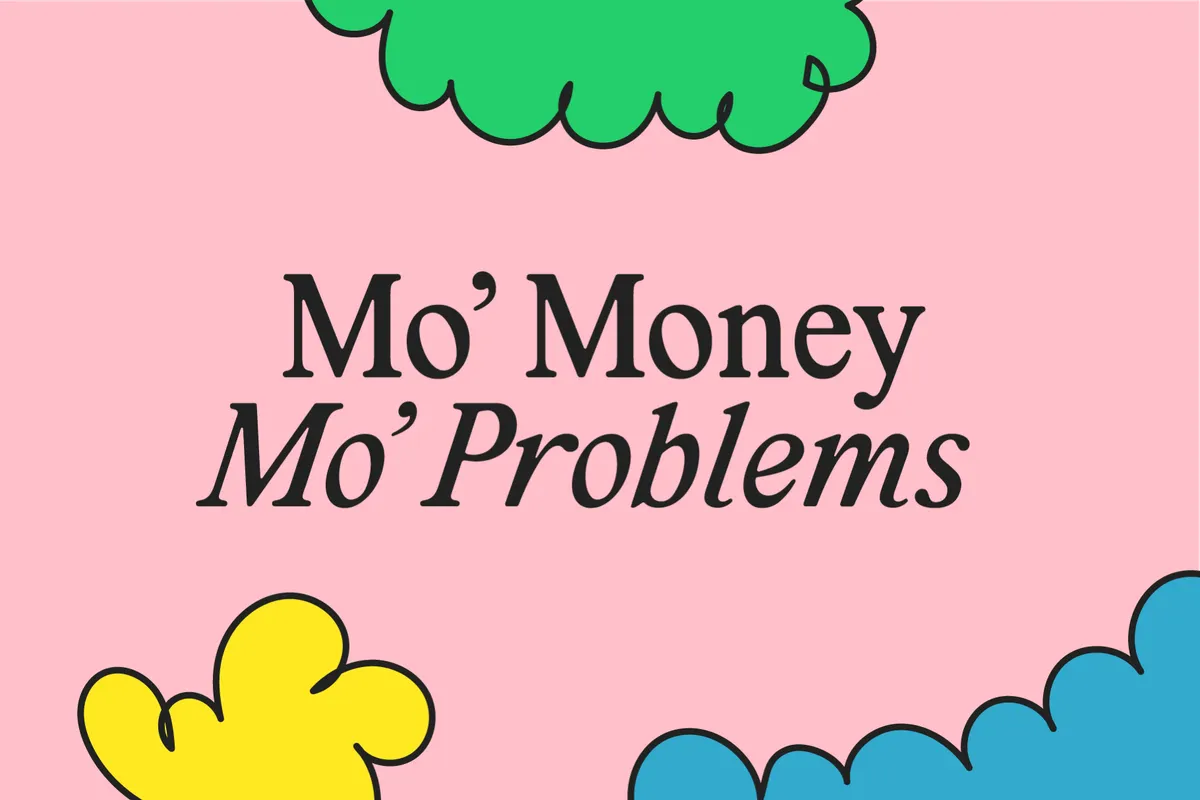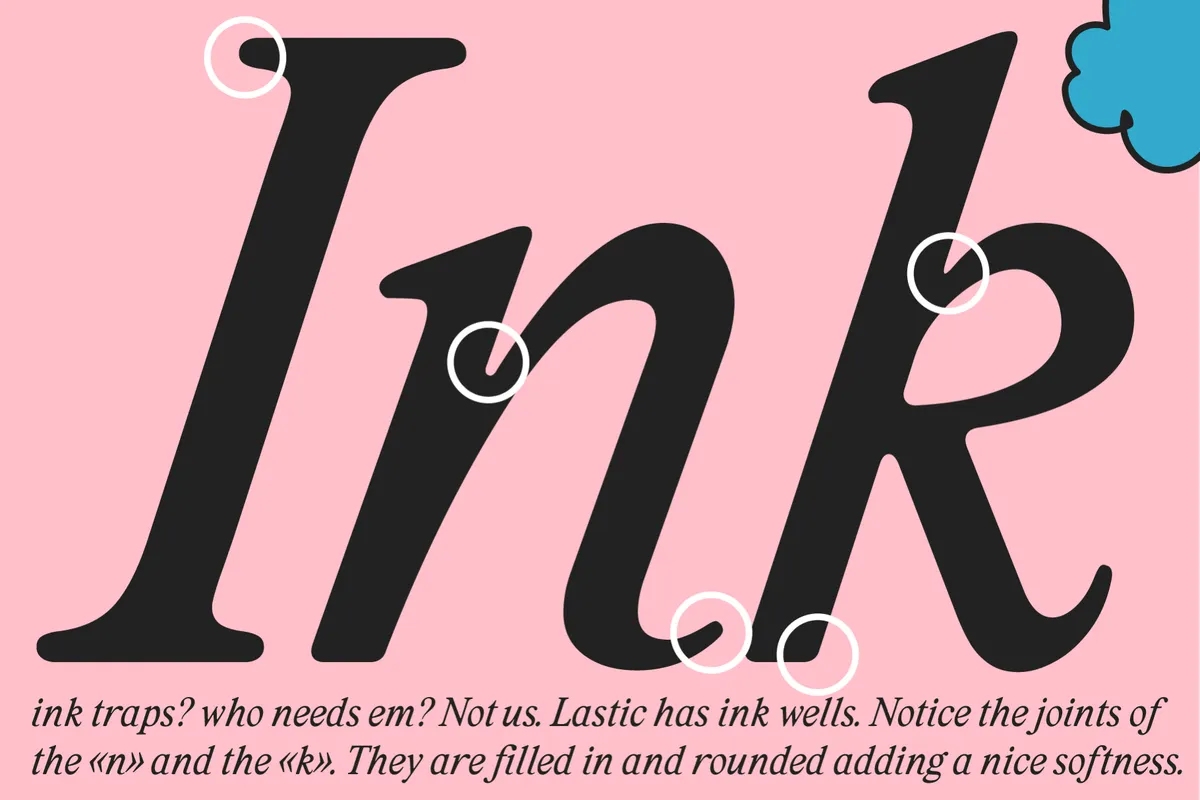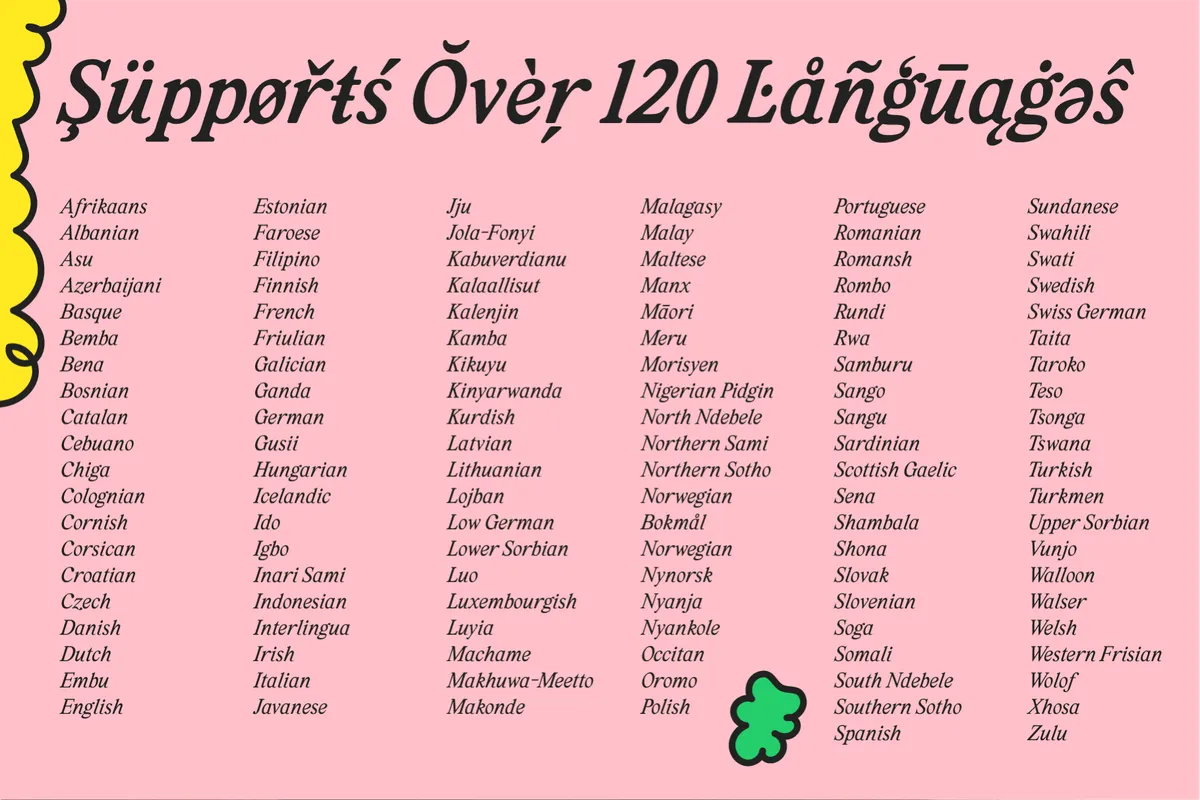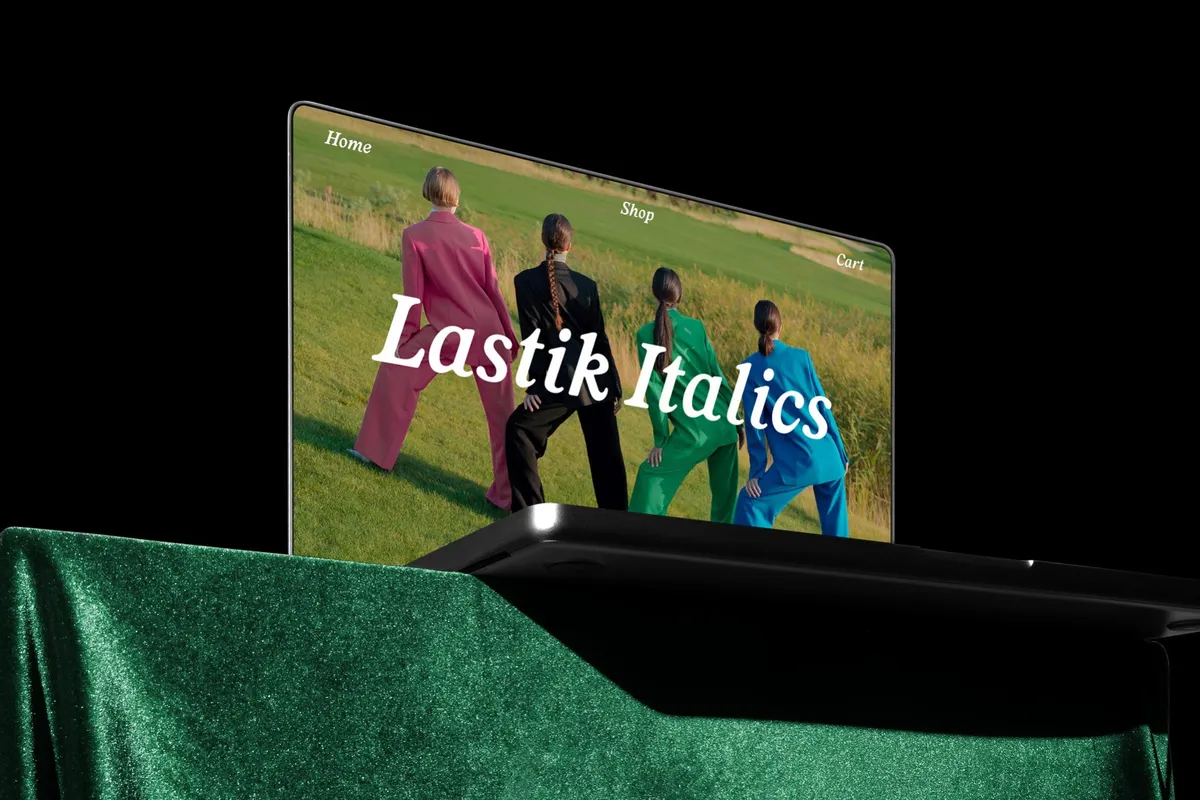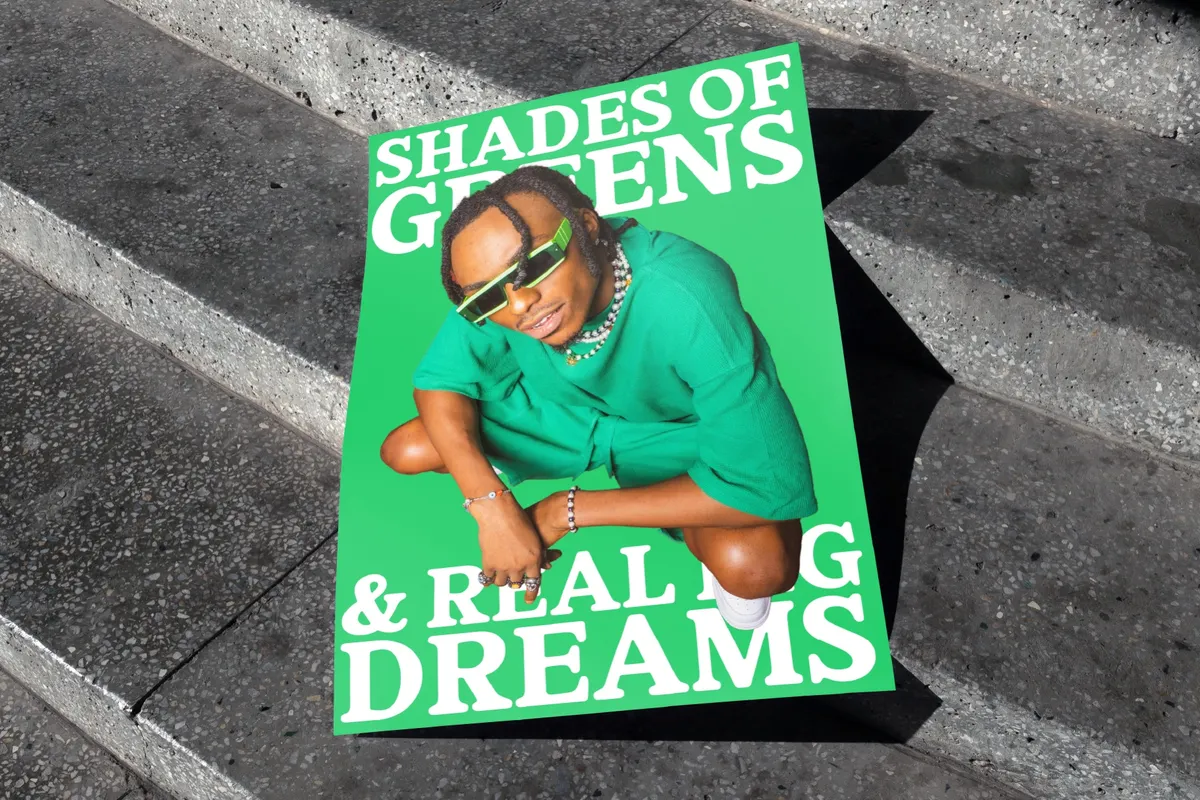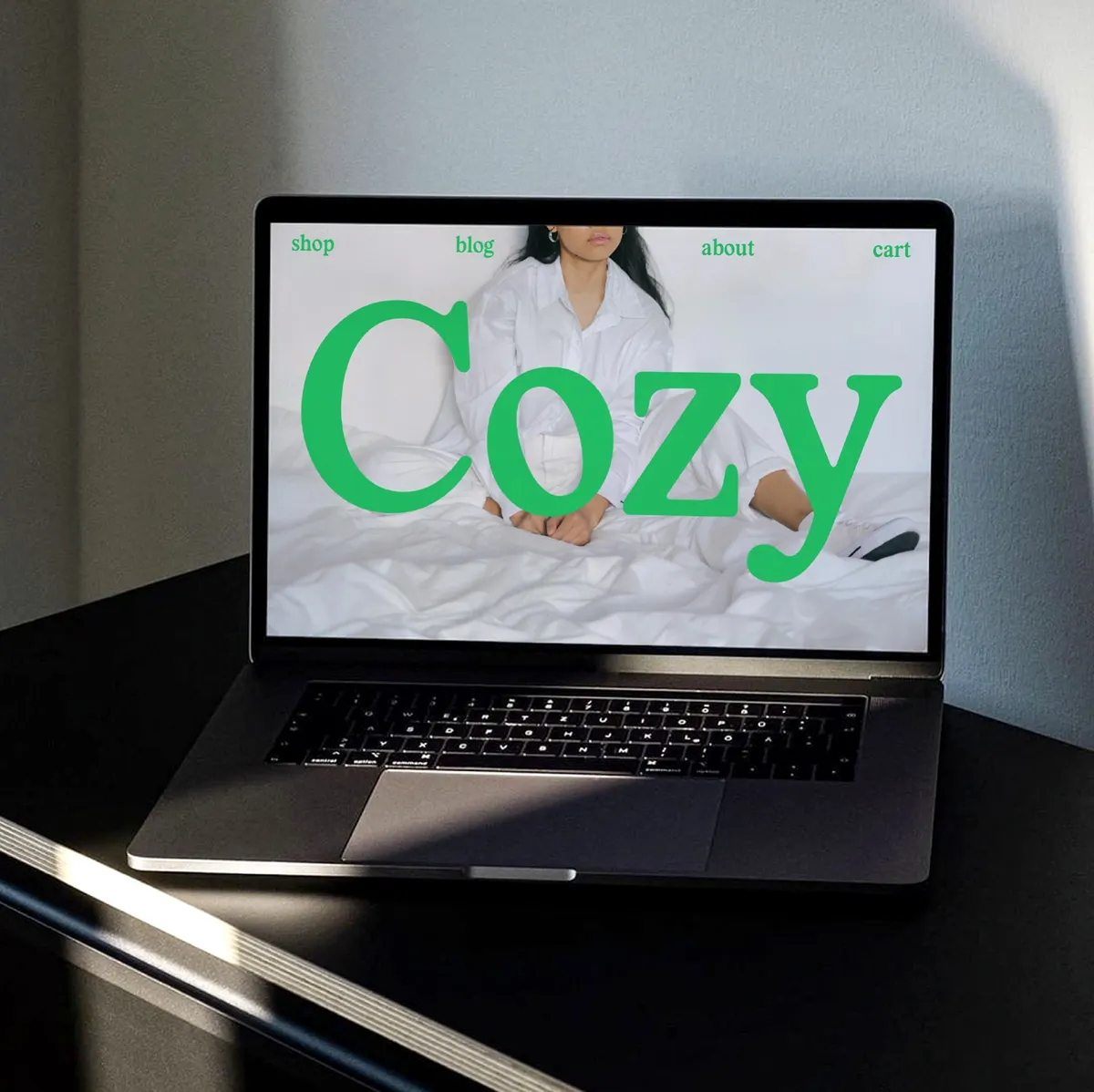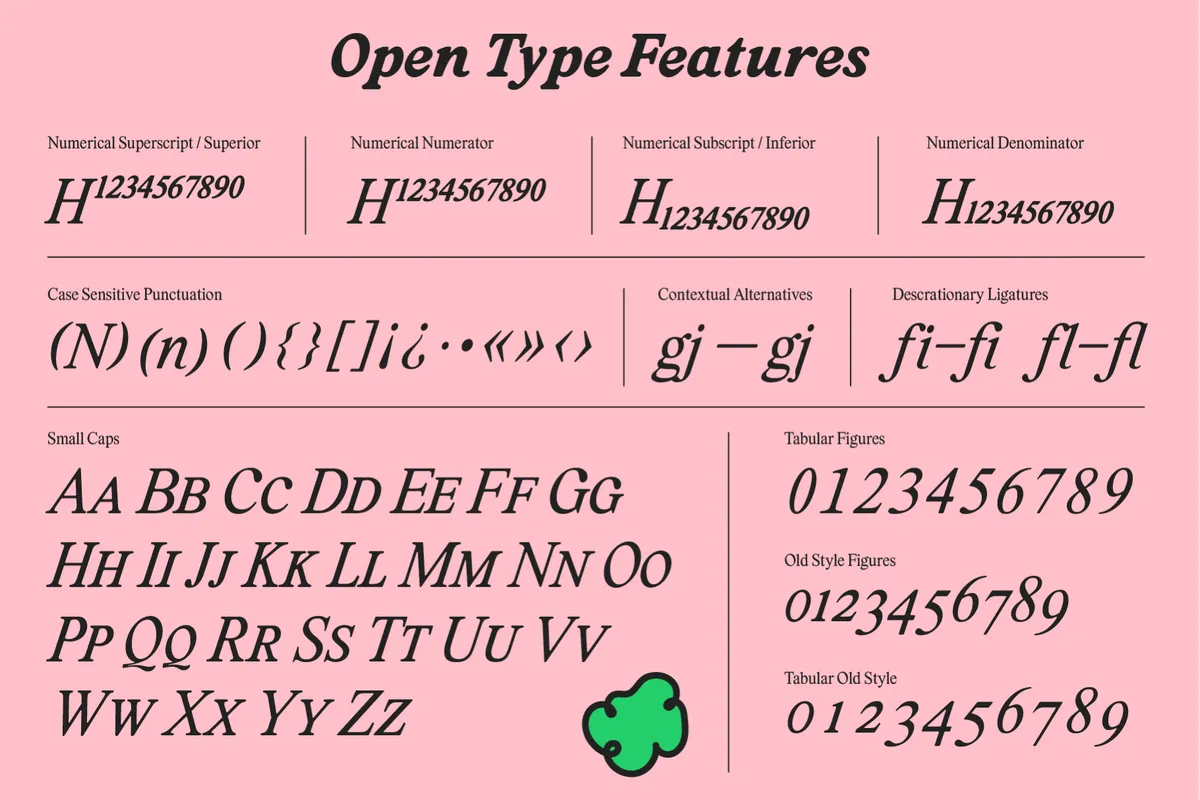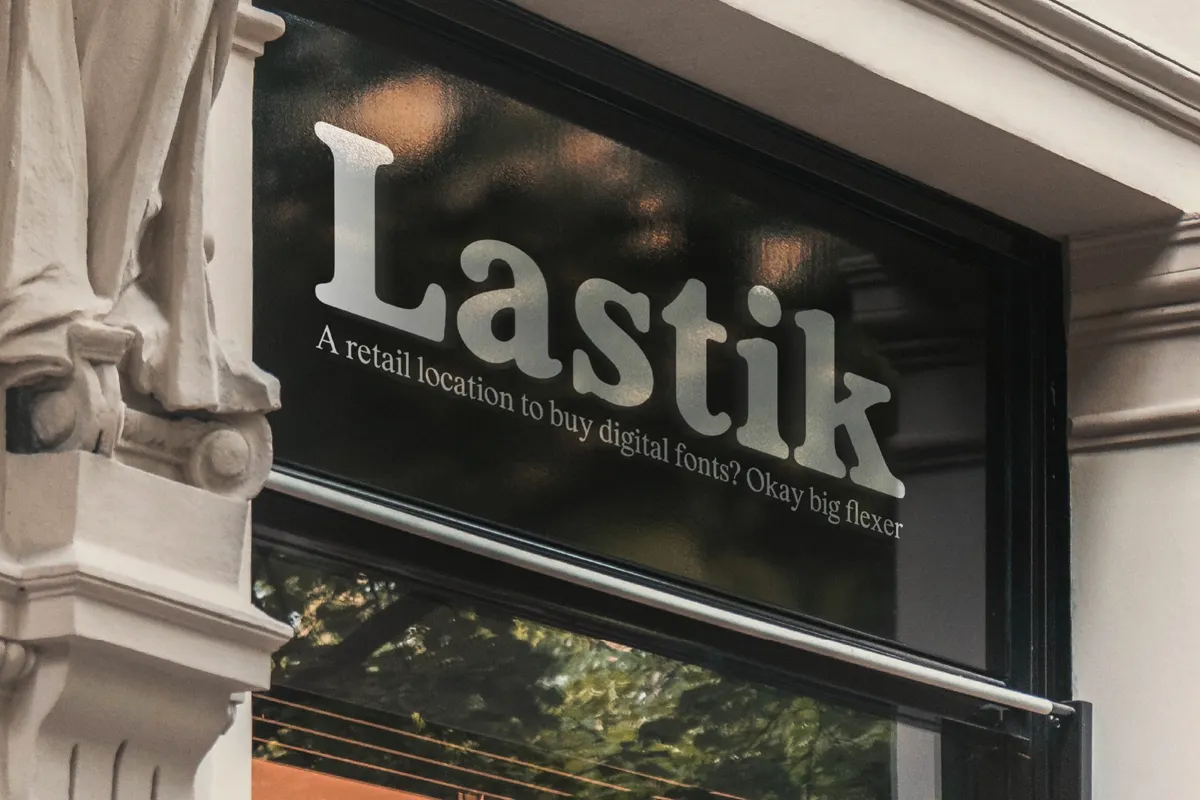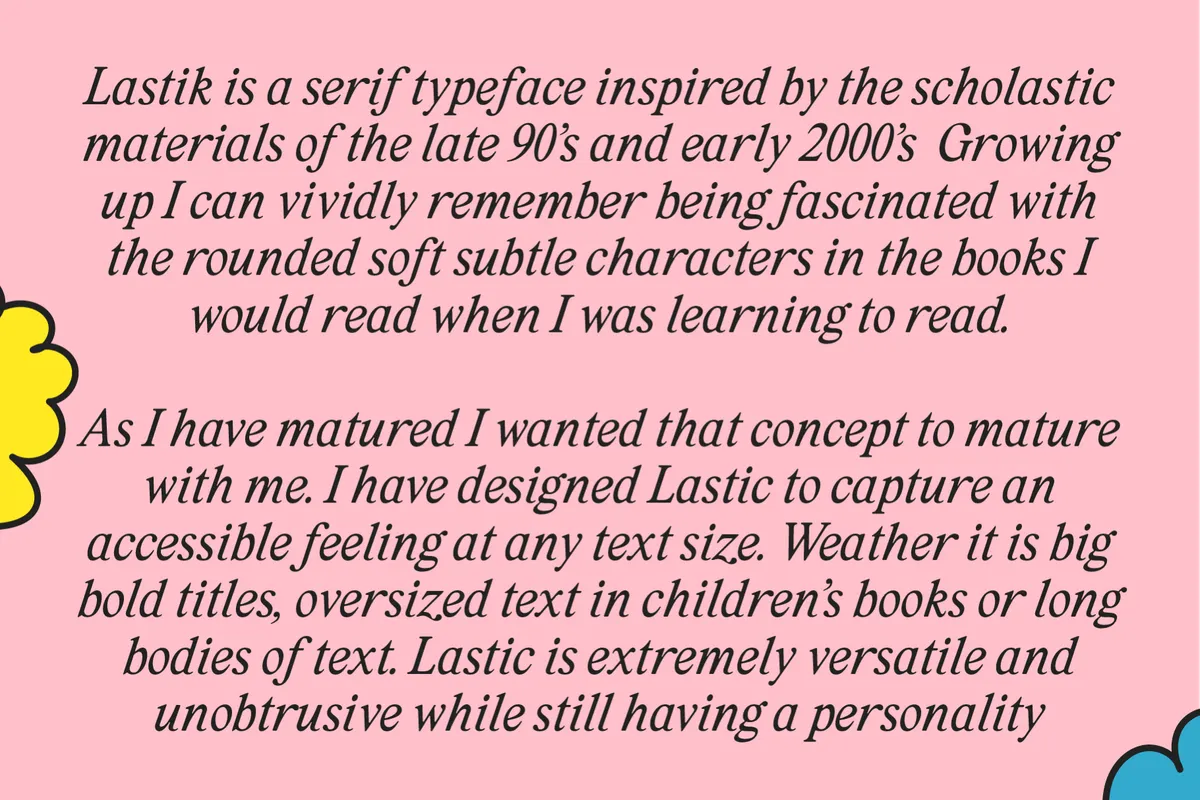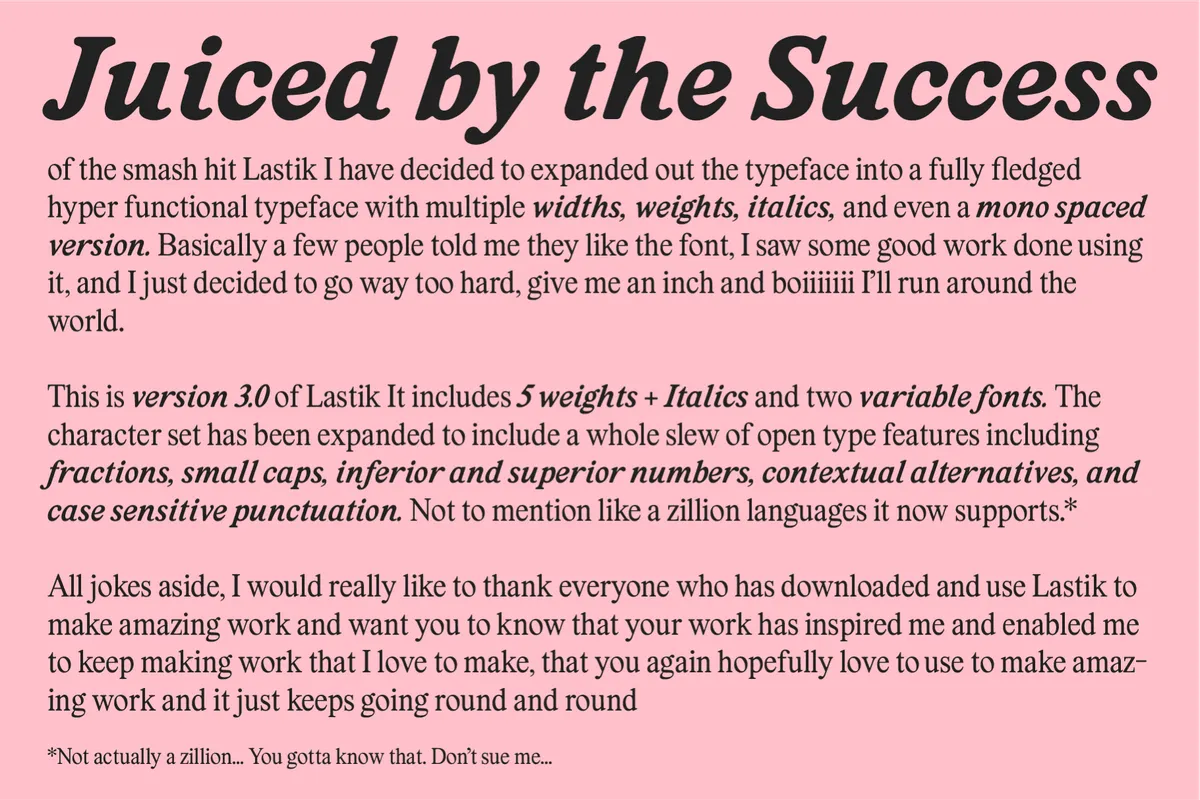
Lastik - Retro Serif Font Family
Lastik is a retro serif font family with soft, rounded letterforms that recall late-90s and early-2000s schoolbook typography. Thick strokes end in blunt, rounded terminals, the a keeps a single-story bowl, and full round dots sit over the i and j, giving the family a friendly, well-worn softness. Ten weights — from Regular to Black, each paired with a companion italic — hold that same easygoing rhythm from small body copy up to oversized display type.
The retro warmth suits nostalgic, hand-me-down themes without tipping into costume kitsch. Use it for children's book covers, storybook interiors, packaging copy, editorial headlines, poster titles, greeting cards, retro branding, zine layouts, social graphics, and long-form body text.
- uppercase & lowercase;
- numerals, punctuation & symbols, plus fractions;
- ligatures, contextual alternates, small caps, case-sensitive punctuation, decorative numeral style sets, superscript & subscript, and oldstyle & tabular figures;
- multilingual support across 120+ languages;